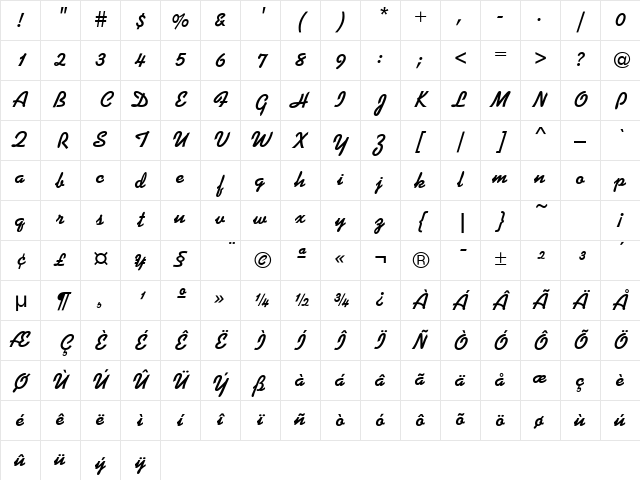
Klefmon Normal
Design Context for Klefmon
Klefmon is a composed and adaptable typeface that performs quietly and consistently across a wide range of design contexts.